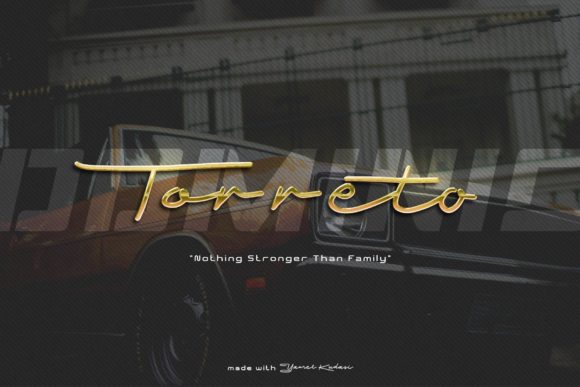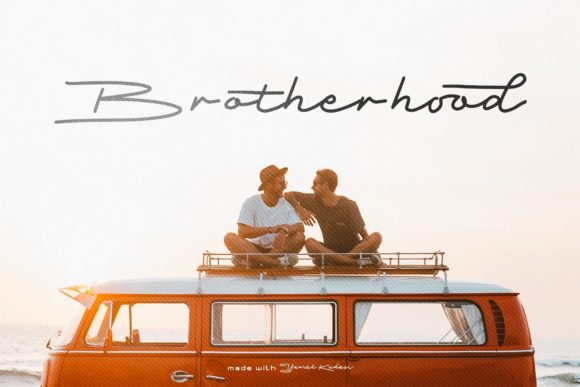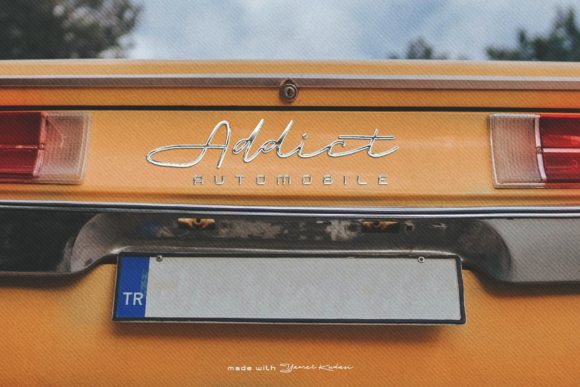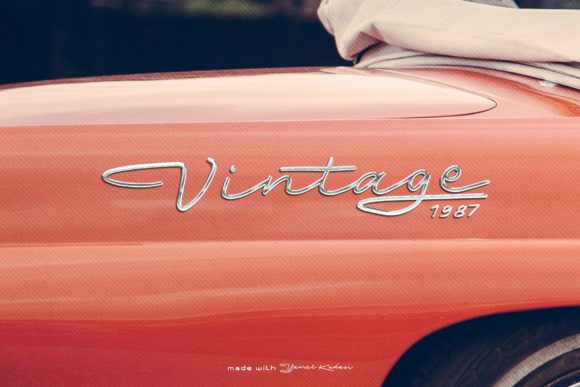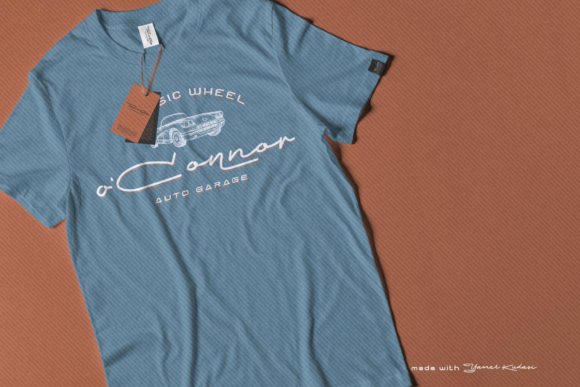
About Yamet Kudasi Font
Yamet Kudasi is a lovely script font inspired by retro script with a dynamic and sporty monoline. The Yamet Kudasi font is perfect for making designs with classic racing, fashion, sporty themes, or for logotypes.